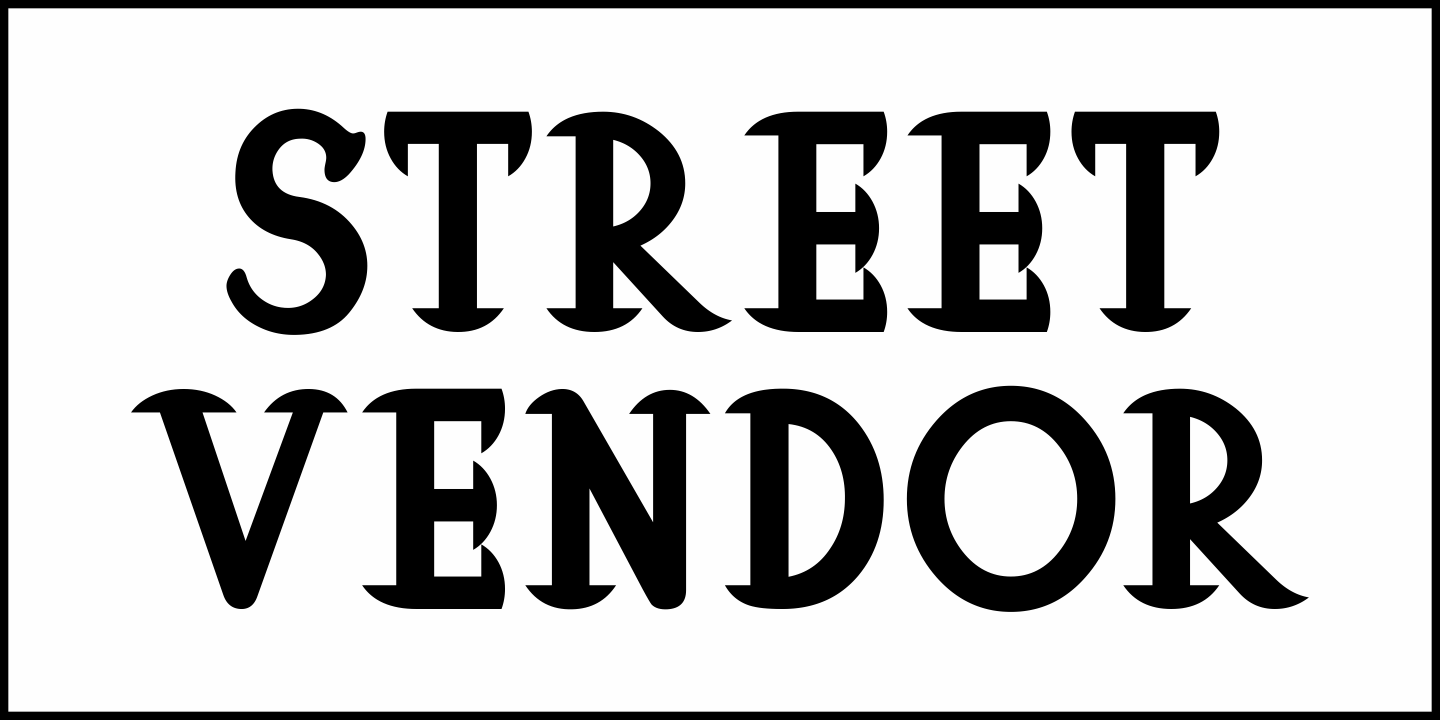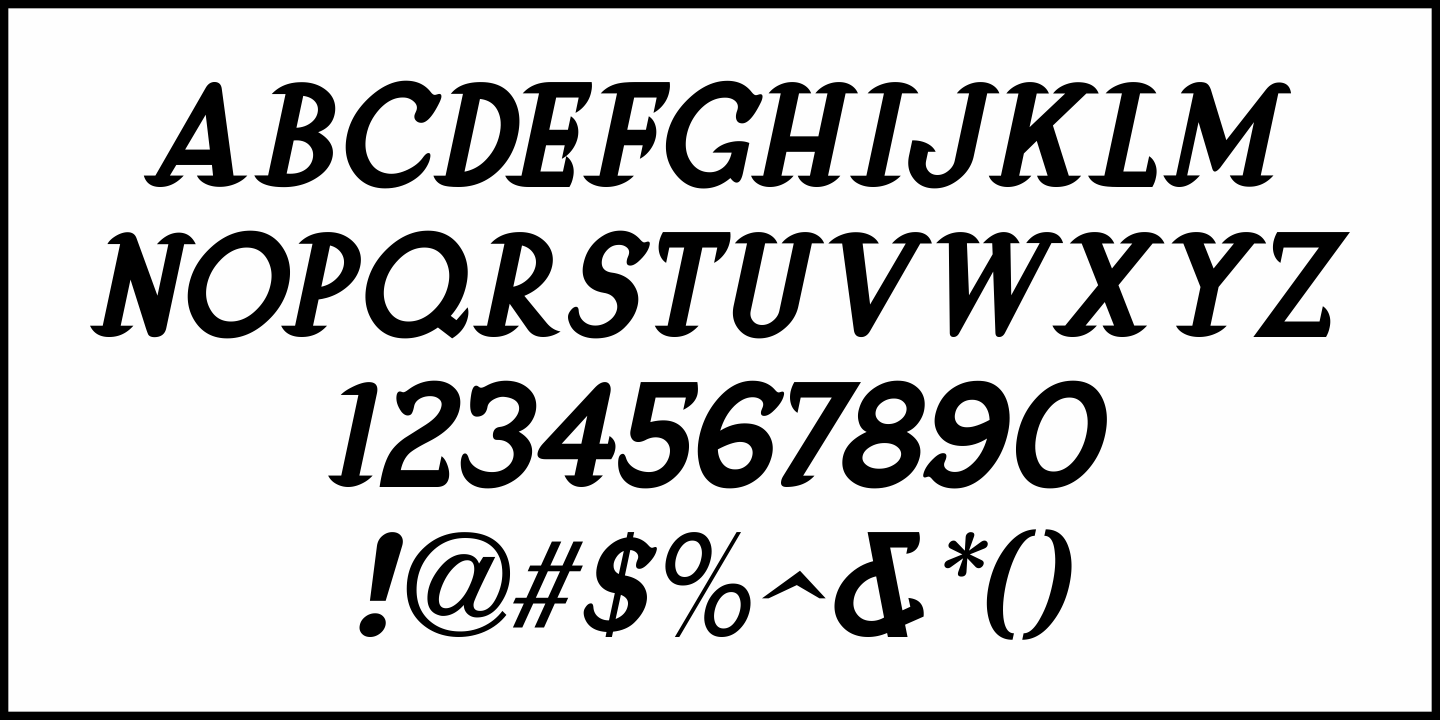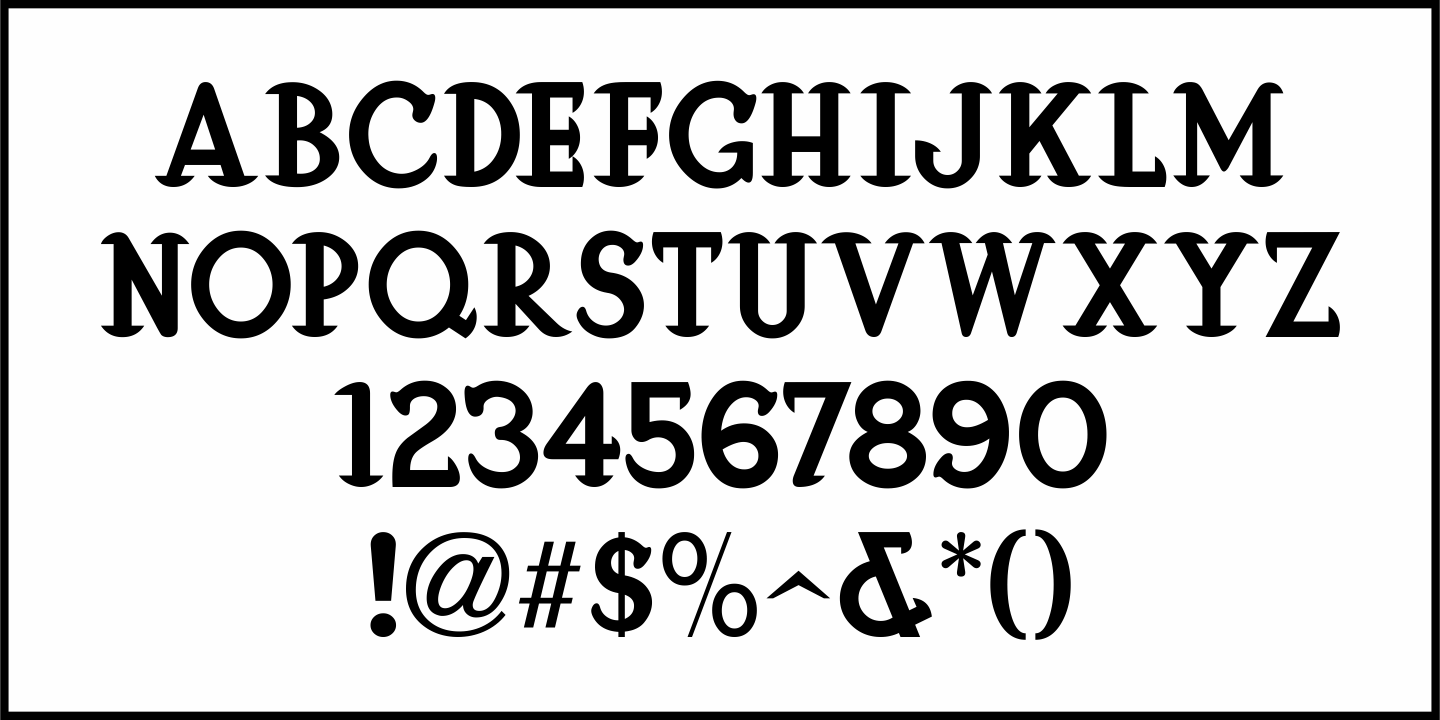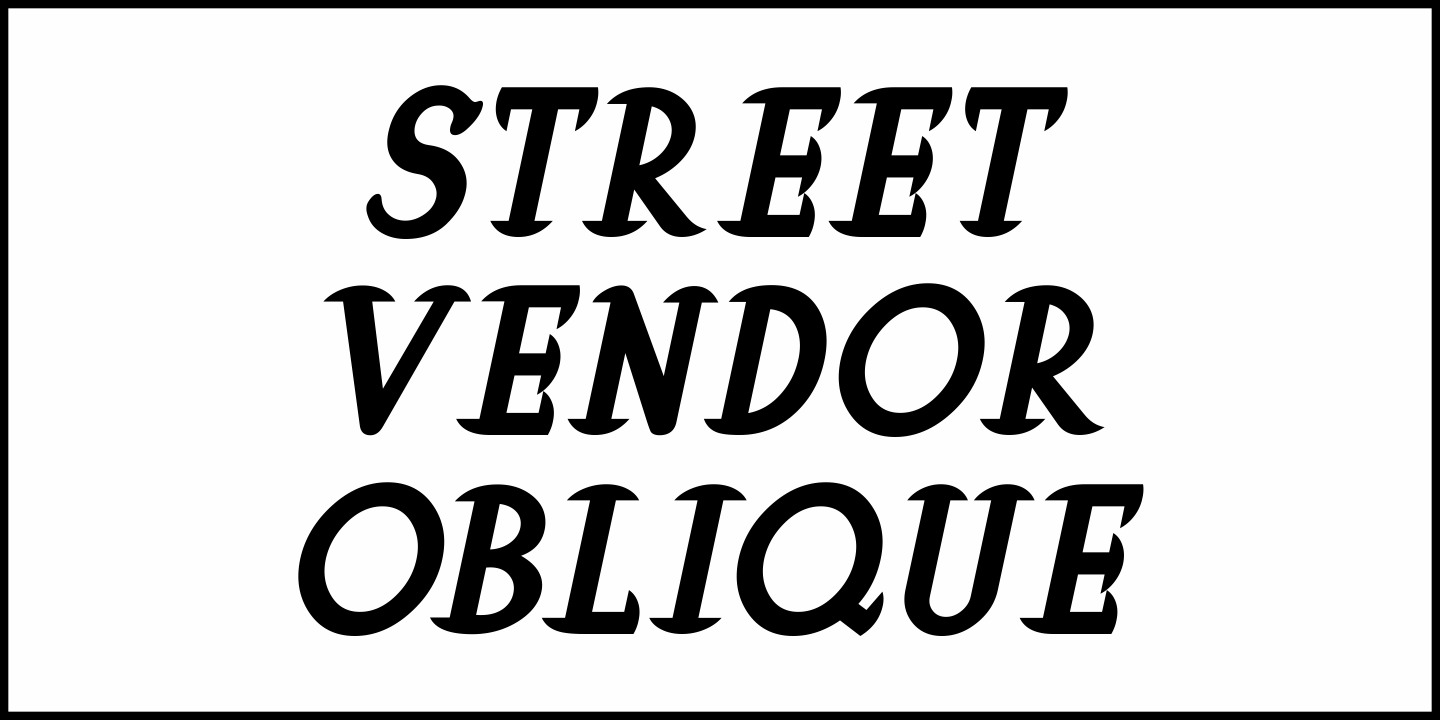
Street Vendor
Here's an unusual bit of hand lettering from the Sept. 28, 1934 issue of The Film Daily, a movie industry trade paper...
An ad for "The Barretts of Wimpole Street" had the name of the film in a serif font with curved, semi-circular serifs - somewhat resembling mushroom caps.
This novelty type design is now available as Street Vendor JNL, in both regular and oblique versions.